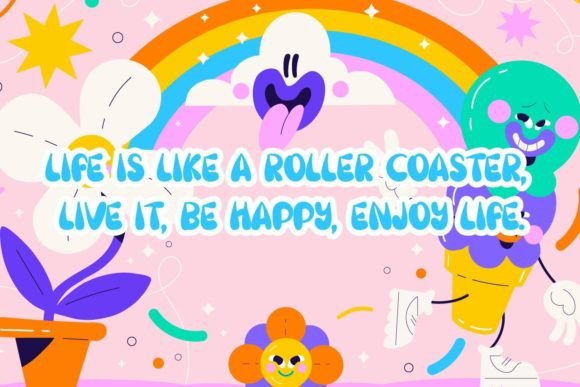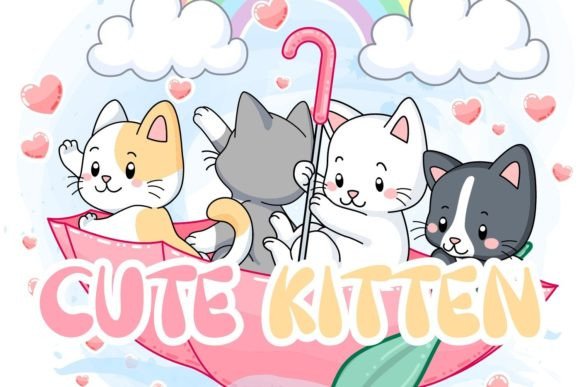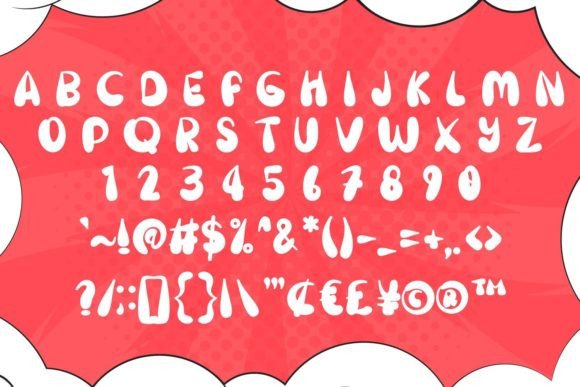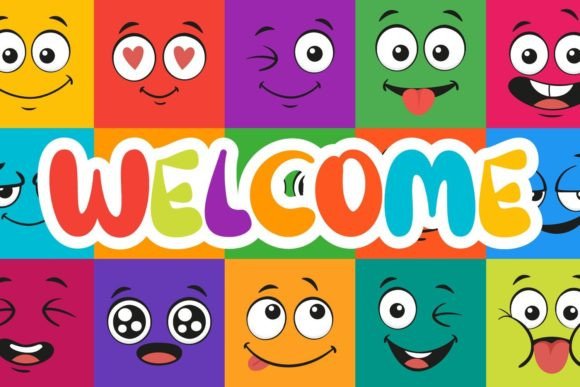
The Groovy Over Font: A Fun and Playful Addition to Your Designs
Have you ever been working on a design project, and suddenly, you just can’t seem to find the right font? I know I have! It was a sunny Saturday afternoon, and I was tasked with creating a party invitation for a client’s kid’s birthday bash. The theme was a colorful, retro-inspired carnival, and I needed a font that would match the vibe. That’s when I stumbled upon Groovy Over, a cool and cute looking display font that instantly brought the party to life!
- ✨ Groovy Over is ridiculously easy to read, even at smaller sizes, which makes it perfect for a variety of design applications.
- ✅ The font has a youthful and energetic feel to it, making it ideal for designs that require a touch of playfulness.
- 🎉 It comes with a range of OpenType features, including stylistic alternates and glyphs, which allow for endless creative possibilities.
While Groovy Over is an amazing font, there are a few things to keep in mind:
- 🤔 The font can be a bit over-the-top for more formal designs. Use it sparingly and with intention.
- ⚠️ Some of the more intricate glyphs and alternates can get a bit lost at smaller sizes.
A Practical Guide: Using Groovy Over in Your Designs
The Story Behind Groovy Over: A Designer Inspiration
Groovy Over was inspired by the vibrant colors and playful energy of 1960s and 1970s design. The font’s creator, a talented designer with a passion for retro aesthetics, wanted to capture the essence of a bygone era and bring it to life in a modern, digital context. The result is a font that’s equal parts nostalgic and fresh.
Q: What type of designs is Groovy Over best suited for?
A: Groovy Over is perfect for designs that require a touch of playfulness and youthfulness, such as party invitations, social media graphics, and posters.